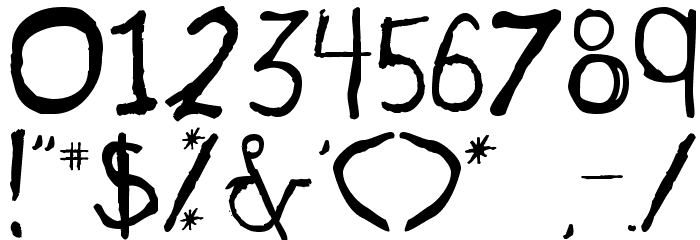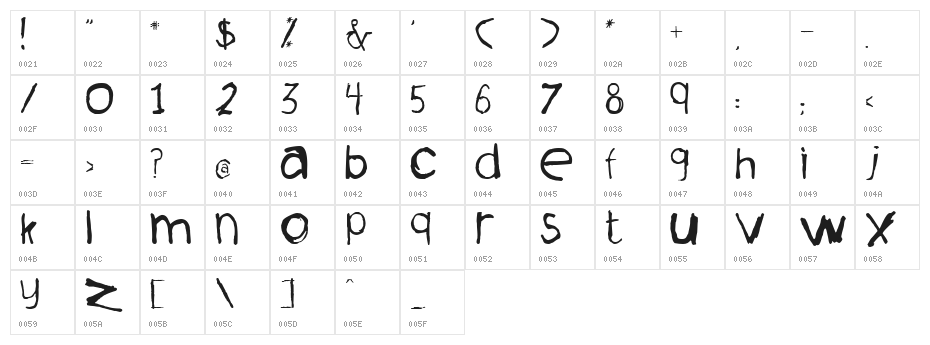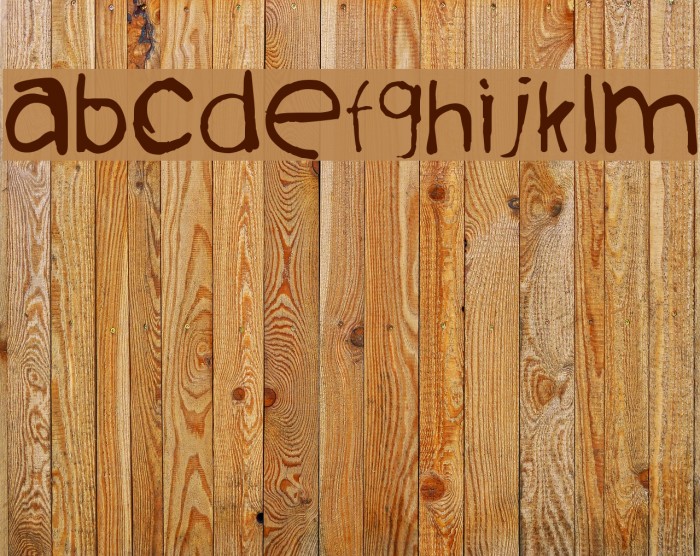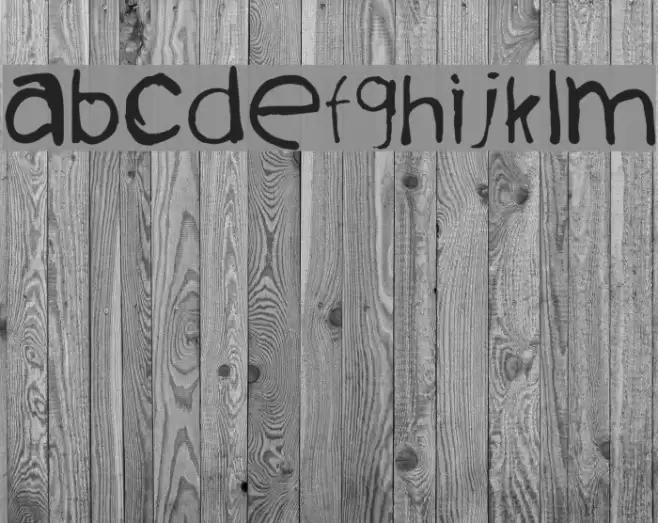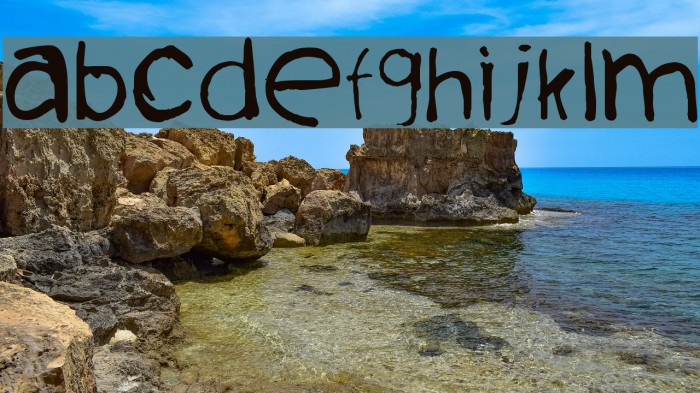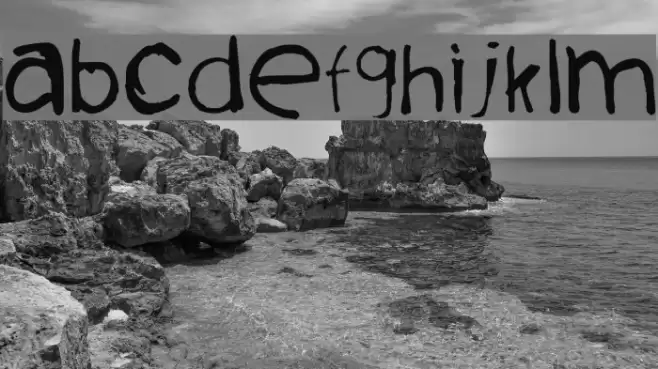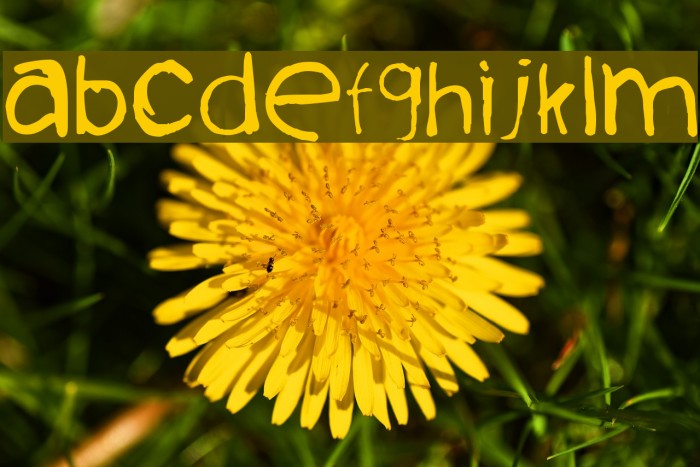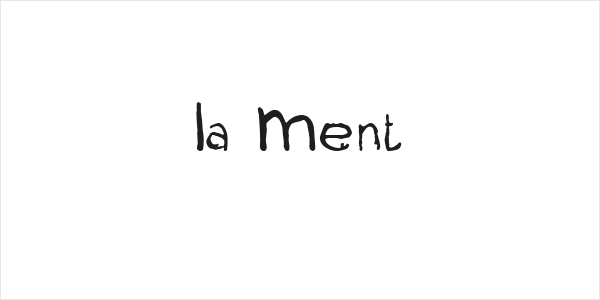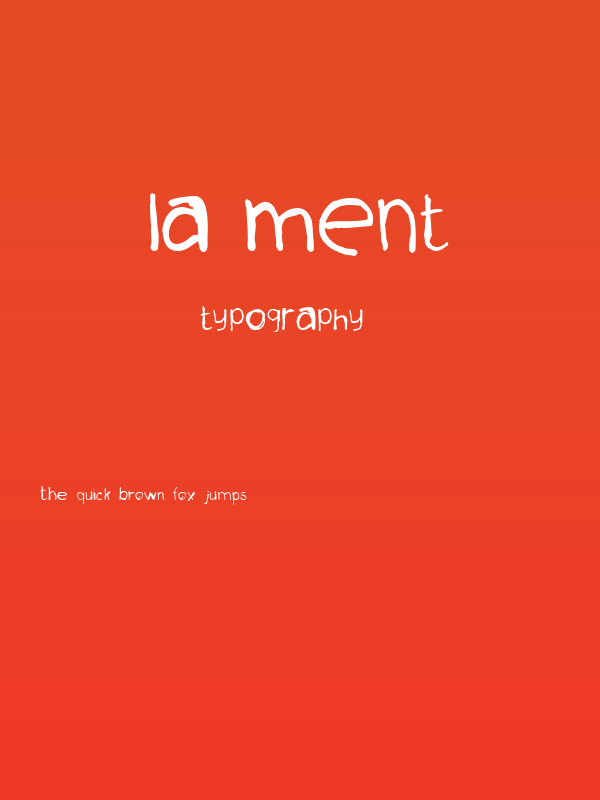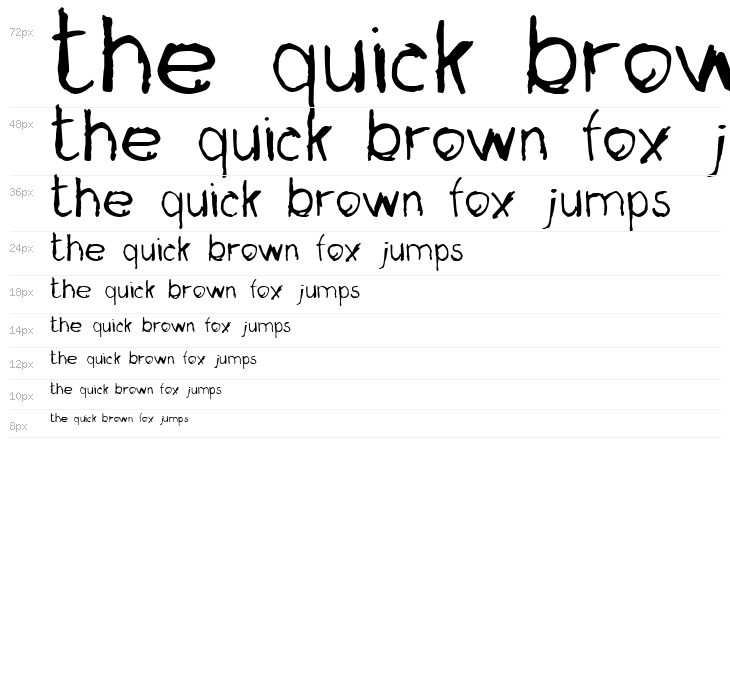
La Ment Font
La Ment Description
This font features a hand-drawn, organic style with irregular, playful strokes that give it a whimsical and artistic appearance. The letters are unevenly sized and spaced, adding to its casual and informal charm. The characters have a slightly rough texture, reminiscent of brush strokes or ink, which enhances its handmade feel. The font includes both uppercase and lowercase letters, numerals, and a variety of special characters, making it versatile for creative projects. Its unique style is perfect for adding a personal touch to designs.
| Overall Style | Artistic |
| Use Case | Logos, Posters, Creative projects |
| Proposed Projects | Ideal for greeting cards, children's book illustrations, artistic posters, and creative branding. |